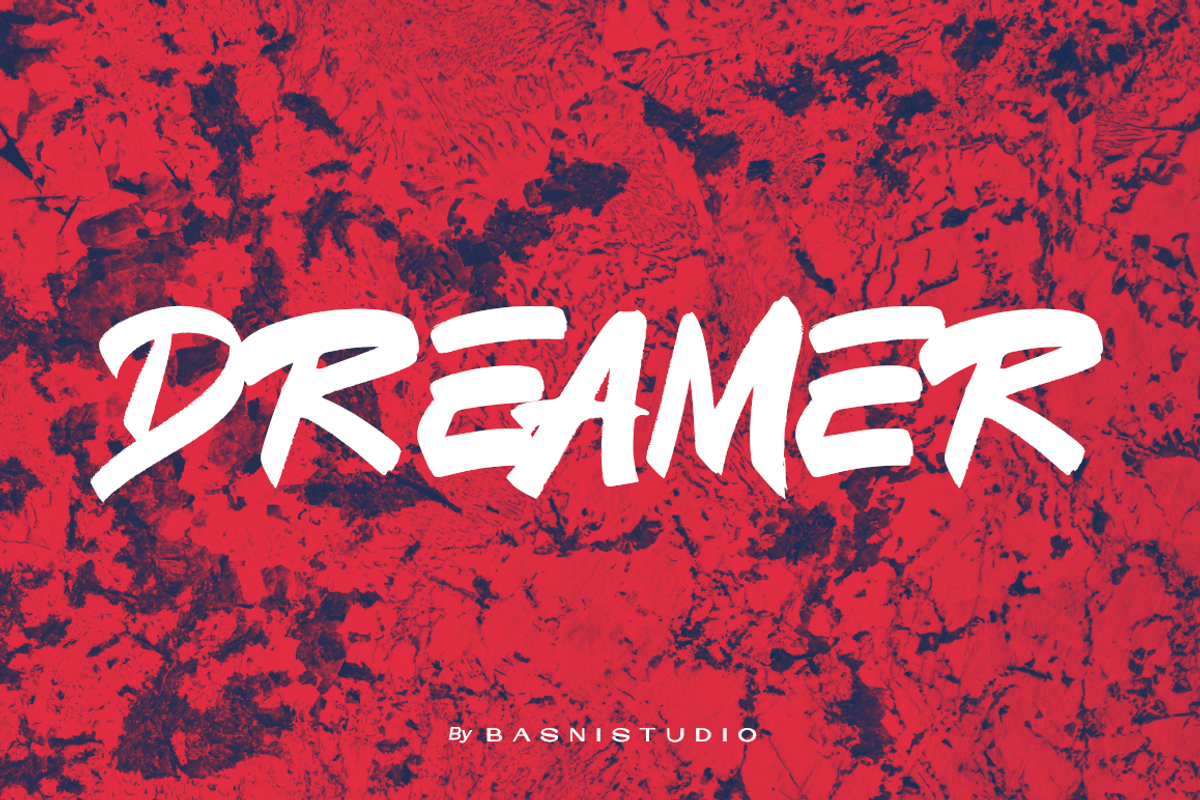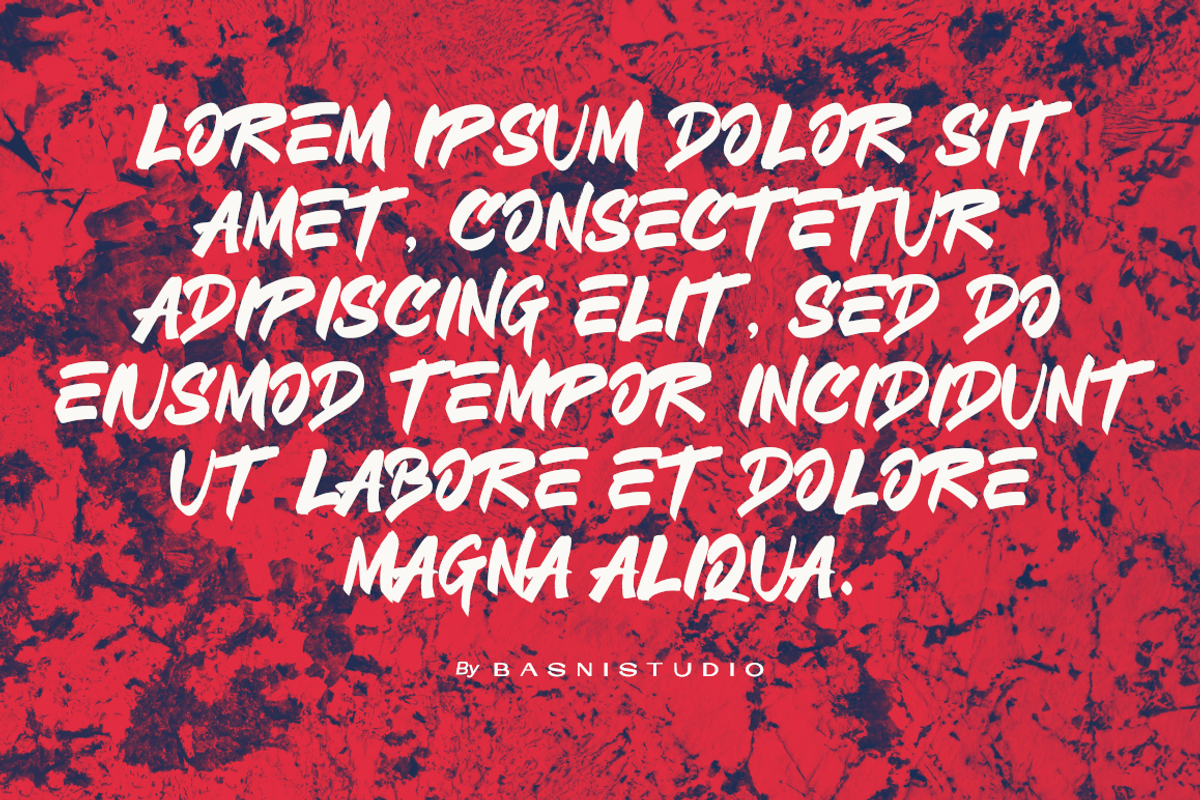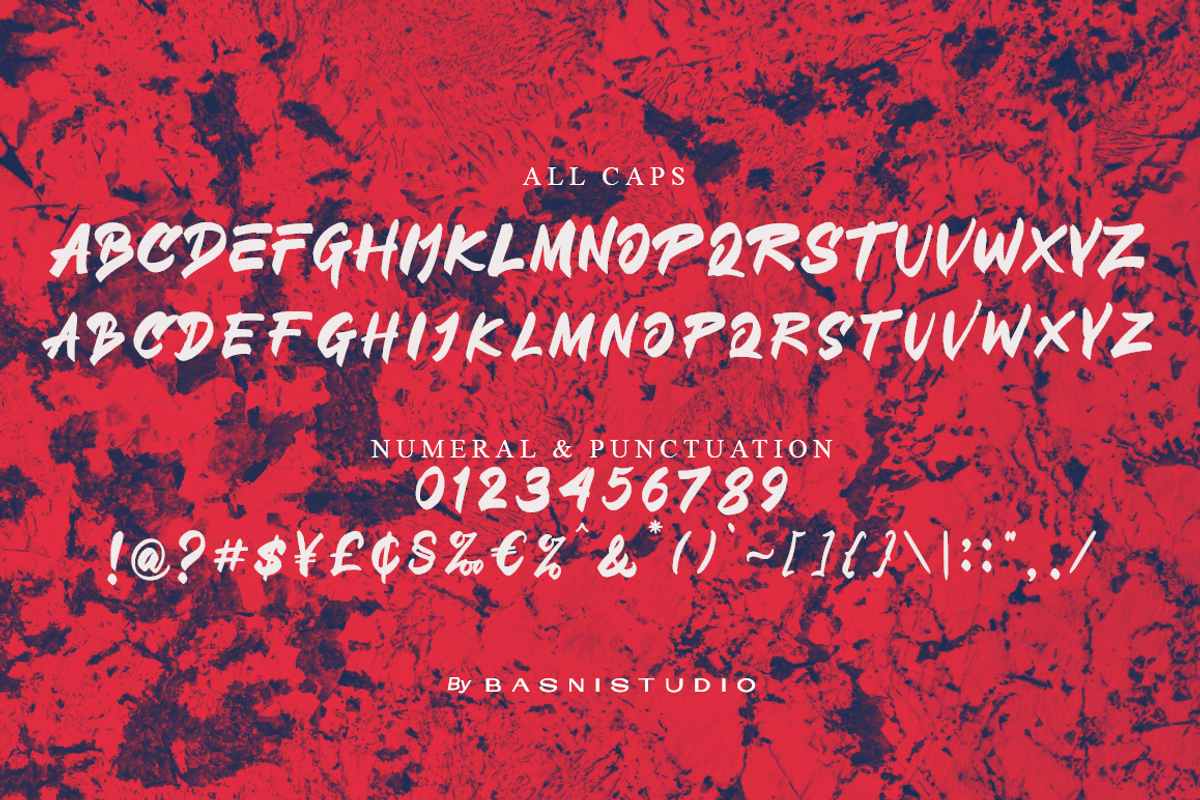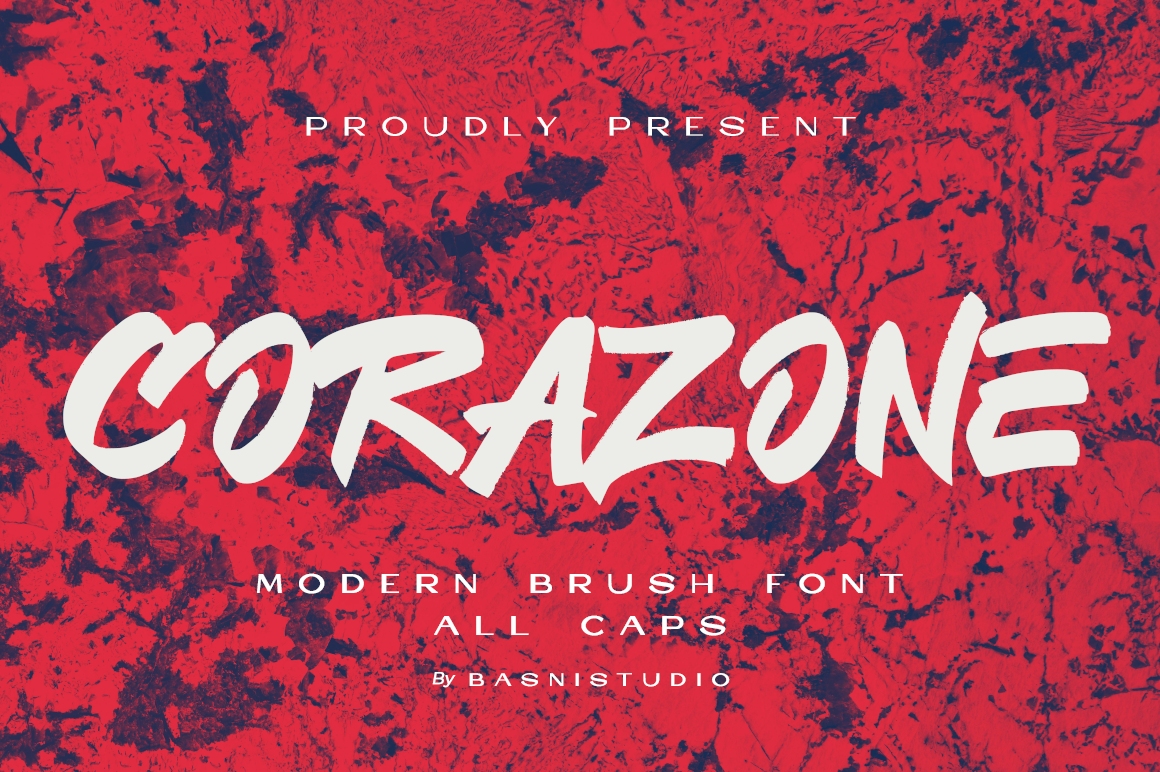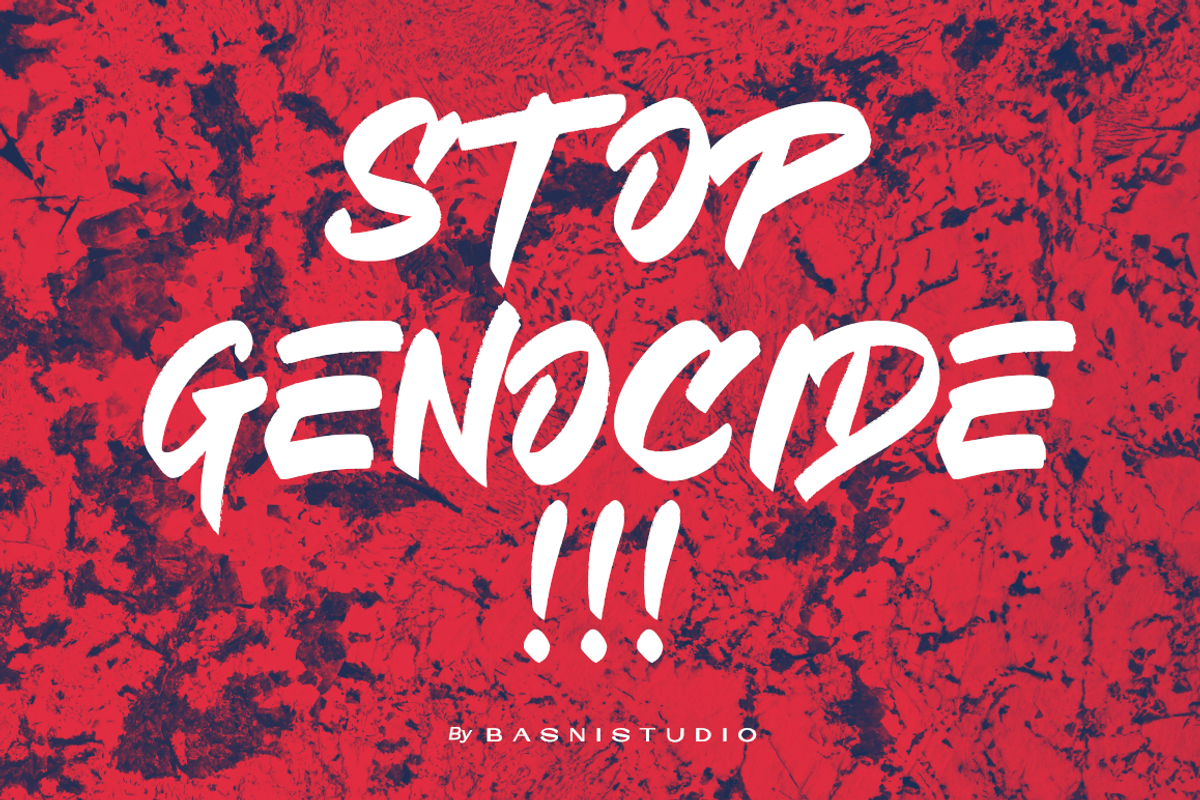
CORAZONE Modern Brush All Caps Font
Introducing CORAZONE Modern Brush Font
CORAZONE Modern Brush Font, made with Naturaly, perfect for branding, websites, and editorial designs. Includes all Caps letters, multilingual support, punctuation, binding. everything can be easily accessed using software that supports OpenType. What’s include: